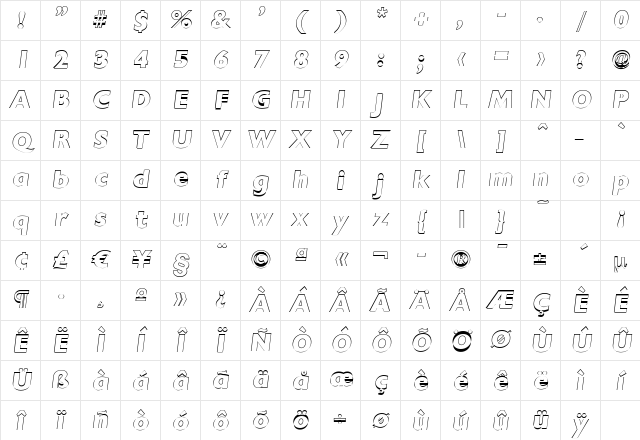
DavidBeckerOutline-ExtraBold Italic Free Font
DavidBeckerOutline-ExtraBold Italic
DavidBeckerOutline-ExtraBold Family
Design Context for DavidBeckerOutline-ExtraBold
DavidBeckerOutline-ExtraBold is built around its visual character rather than neutral utility - its distinctive forms are designed to make an impression at display sizes. The slanted form adds forward momentum and visual energy. Its bold stroke weight gives it real presence on the page.